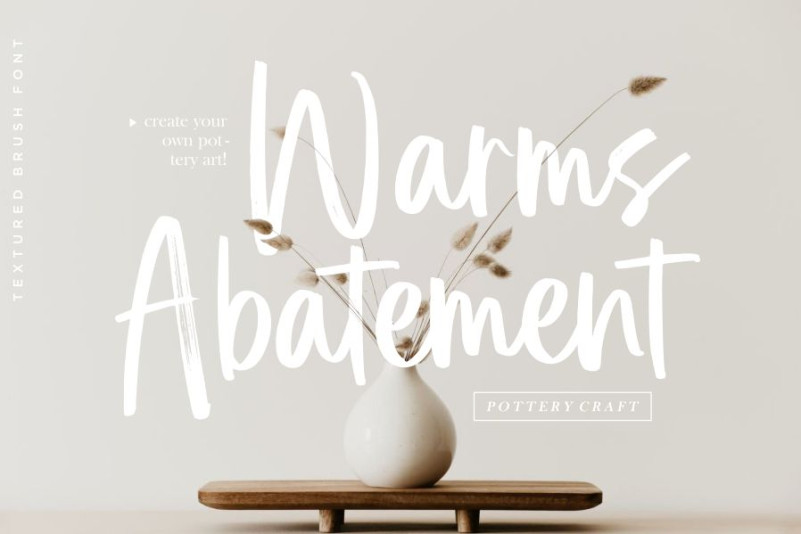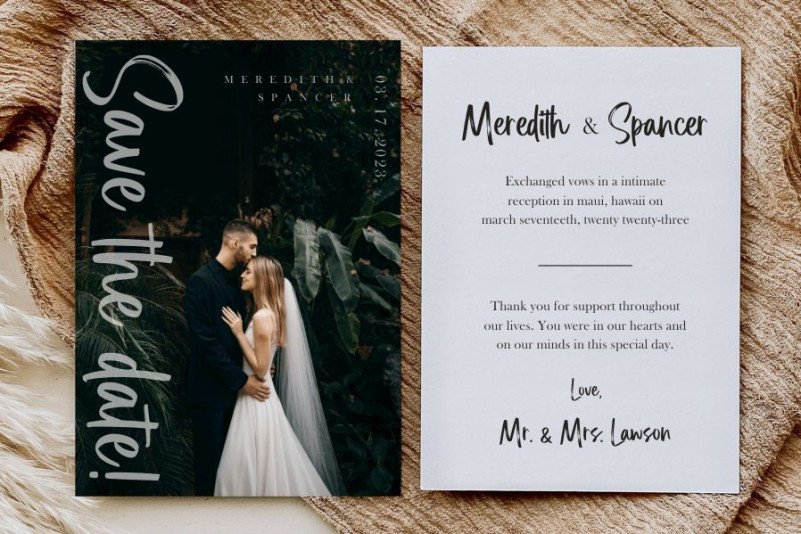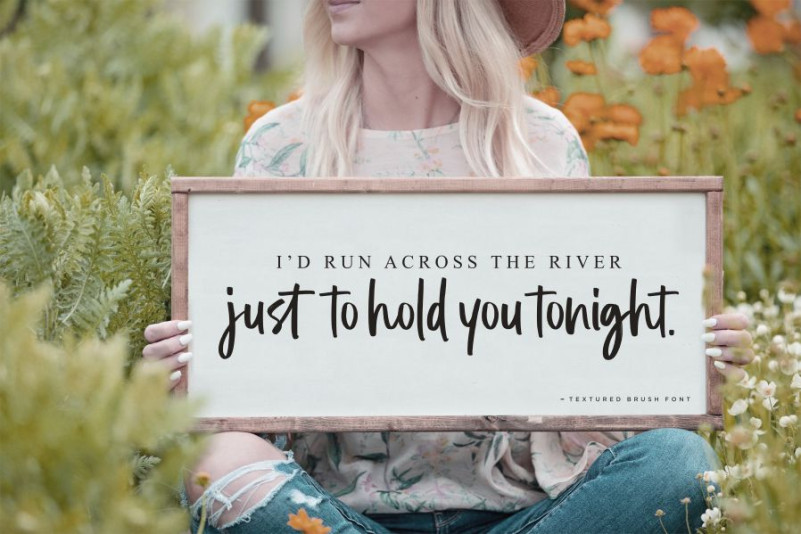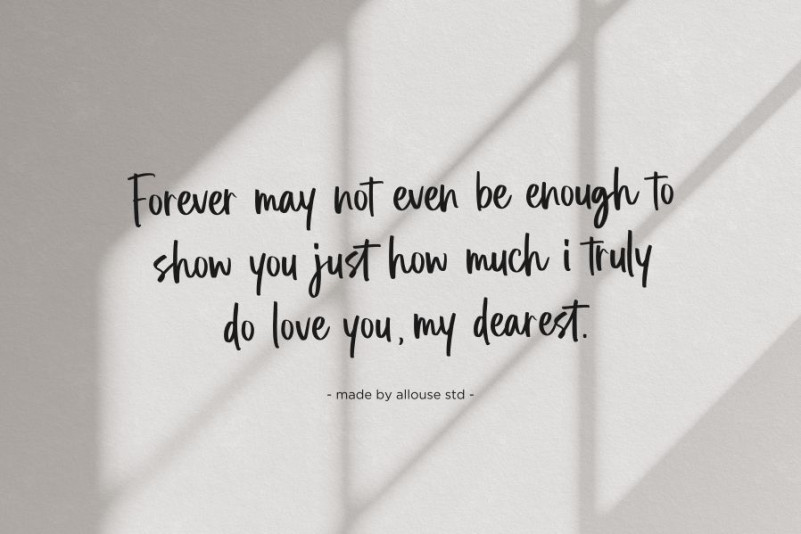
Captain Washington Brush Font is a Textured Brush Font. Captain Washington is perfect for product packaging, branding project, megazine, social media, wedding, or just used to express words above the background.